Four African artists use the power of abstract writing to reveal their thoughts and take viewers on a journey of creative interpretation
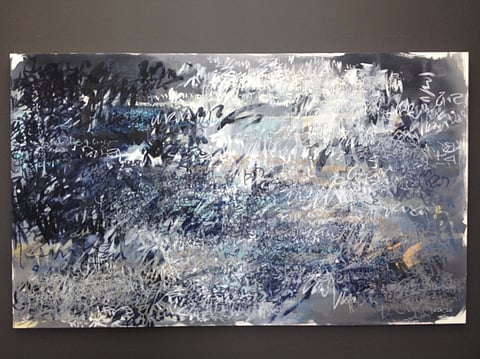
African artists Alison Coulthurst, Grace Kotze, Helen Teede and Andrew Verster are interested in exploring the relationship between painting and language. The four artists have used the power of abstract writing to express themselves in their joint show, “Scripts of Our Unspoken Words”.
The words in their paintings are often barely legible and seemingly meaningless, but the colours, fonts, textures and implied meanings of the words are like mind maps, subtly revealing the thoughts and emotions of each artist. The mysterious words also invite viewers to create their own interpretations of the paintings.
Zimbabwean artist Coulthurst’s paintings are filled with bright colours, interesting textures, collaged pieces of canvas and Africa-inspired figures with bright red lips. The paintings have titles such as “Letting Go”, “Life is Life” and “You could Chase a Summer Day”, and these words are painted or scratched onto the canvases.
“These titles are inspired by songs, dreams and positive emotions, but I am not interested in revealing their exact meaning. Rather than stimulating interrogations about the significance of the words, I want to invite viewers to feel the forms, colours and energy in my paintings, and to imagine a story of their own,” she says.
Teede, who is also from Zimbabwe, emphasises the expressive bond between writing and painting in her body of work titled “Poetry painting”. The series includes assemblages of blank and ruled sheets of white paper on which the artist has scribbled her own poems in a monochromatic palette of greys and blacks. The illegible letters are like brush strokes.
“My work shows the relationship between the world of painting and writing by accentuating the destruction of the whiteness of a page or canvas as one writes or paints on it, and transforming it into a tantalising mystery that provokes questions and curiosity,” she says.
South African artist Kotze has a different perspective on words because she is dyslexic and has struggled with reading and writing. In her “Internal Markings” series she has broken the barriers of her learning disability by transforming writing into an enjoyable experience. The canvases in her autobiographical paintings are covered with meaningless words representing an internal dialogue that conveys her emotions through the shapes, colours and intensity of the strokes.
Verster, who is also from South Africa, has always been interested in exploring the ornate decorative elements of spiritual deities and iconography. And in recent years he has become fascinated with ancient cultures, especially the practice of body marking such as tattooing, scarification and body painting. He is showing works from his well-known series “Skin Markings” featuring paintings on panels of wax-impregnated tissue paper.
The artist has used a hot iron to apply the wax, which transforms the tissue paper into a skin-like translucent material and works as a laminate holding together layers of paper to form large sheets. These have been stained with materials such as coffee, tea, turmeric and ink to create the look and feel of old parchment. Each painting references the body, which is covered with patterns, symbols and words inspired by tribal markings from cultures where body marking is an important symbol of identity and heritage.
The 75-year-old artist has also taken inspiration from his huge collection of decorative spiritual objects acquired during his travels around the world. His exuberant, childlike paintings are thus based on his personal knowledge of African culture as well as his memories and experiences of other cultures. The patterns represent external and internal markings; and they speak not about any specific culture, but about universal dreams and the sacredness of life itself.
“Skin is one of the ideas behind these works, which comes from memories of holding the mummified hand of a 12th century Irish knight in Dublin; of drawings I did of Inca mummies trussed in the foetal position in the Cusco Museum; and more recently, my research on local tattoo parlours and the intricacies of this revived art.
“Lurking in my mind are other, sinister associations that the word ‘skin’ conjures such as the association with reliquaries where a holy piece of body is enshrined. The skin-like quality of these artworks, and the tattoo marks, refers simultaneously to the exterior body as well as to internal markings. Hence these fragile works provide a bridge between interior and exterior space, between the private and the public,” the artist says.